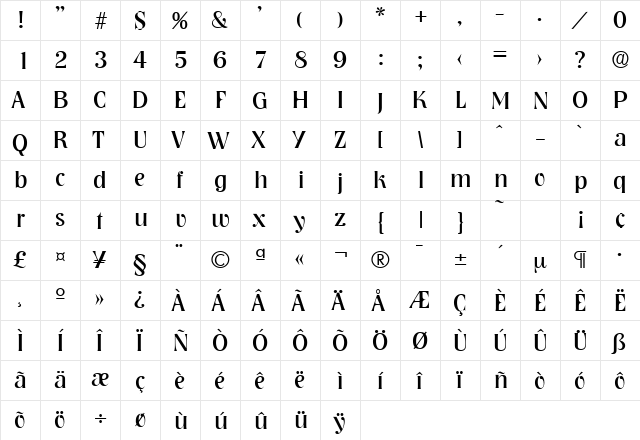
Nashville-Serial Regular
Design Context for Nashville-Serial Typeface
Nashville-Serial is a composed and adaptable typeface that performs quietly and consistently across a wide range of design contexts.